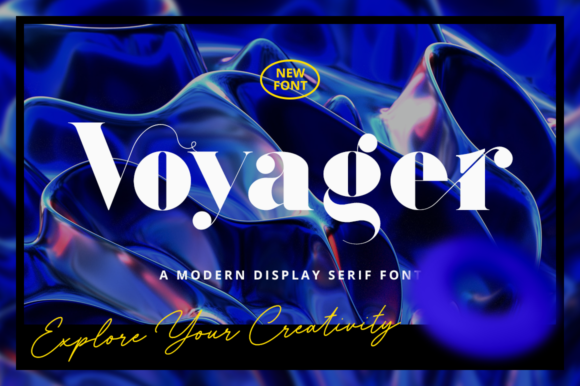
Embark on a typographic odyssey through time and space with Vayager Font - a remarkable serif font that will ignite your creative spirit and leave your audience mesmerized.
With its bold strokes and versatile range, this font is not just a design tool, but a gateway to boundless possibilities. Let Vayager's classic elegance and modern flair transcend the ordinary and transform your words into captivating visual stories.
With Vayager Font, your business cards will no longer be mere pieces of paper - they will become bold statements of style and professionalism. The thick letters will command attention, while the tasteful serifs will lend an air of sophistication. Each card you hand out will be a testament to your impeccable taste and attention to detail.
But Vayager's versatility knows no bounds. Its timeless design shines through in logos, posters, flyers, branding materials, and even web design. Its thick strokes ensure effortless readability on both print and digital platforms, making it the perfect choice for a wide range of creative projects.
Vayager Font is more than just a font - it's a partner in your creative journey. It's a tool that empowers you to express your ideas with confidence and flair. Let Vayager's bold elegance ignite your imagination and turn your designs into masterpieces.
Unlock the potential of your creativity with Vayager Font - the ultimate font for business cards and beyond. Experience the thrill of transforming ordinary words into captivating visual experiences. Download Vayager Font today and step into a world of design excellence.